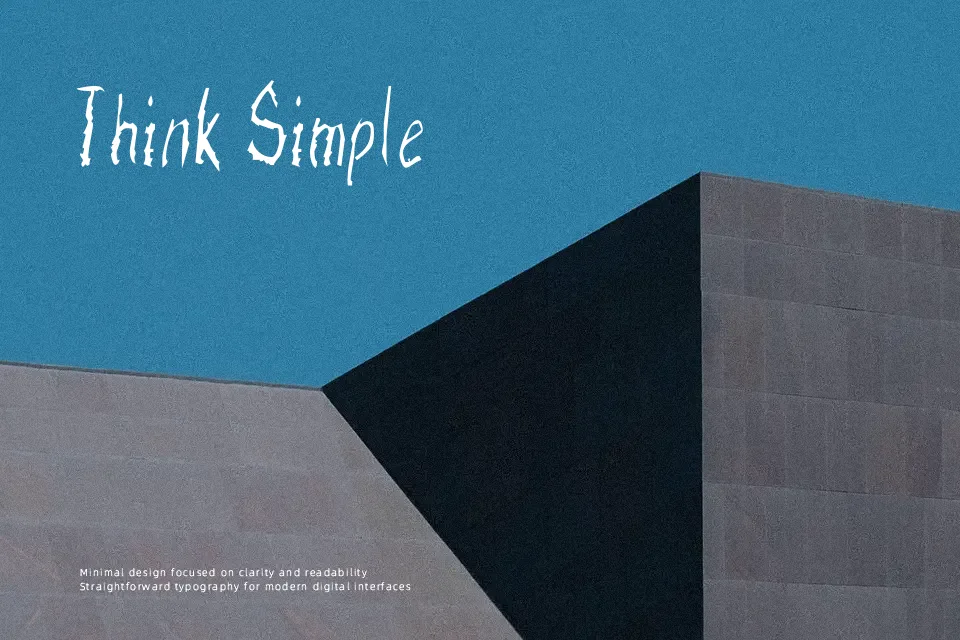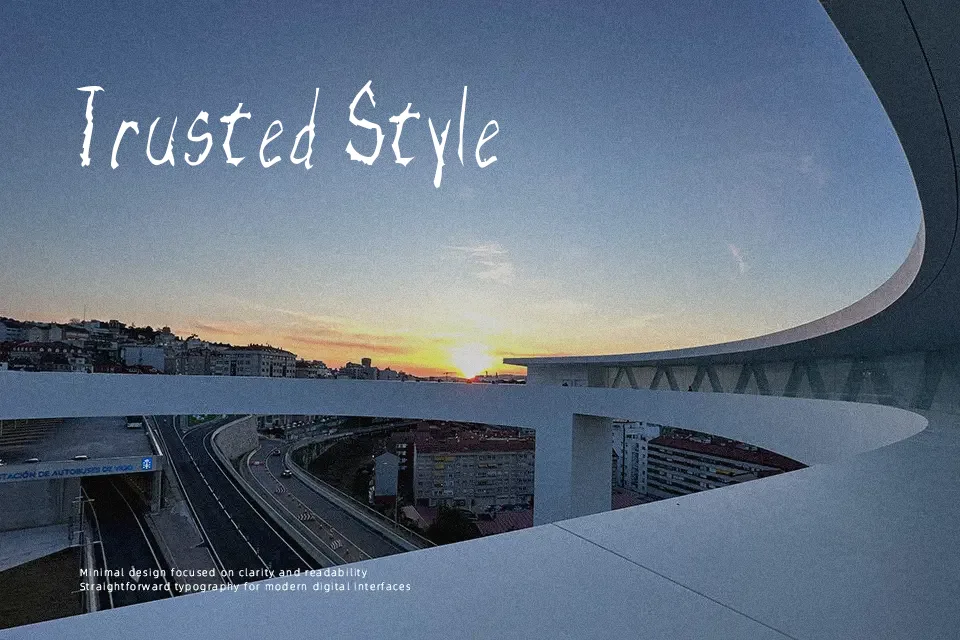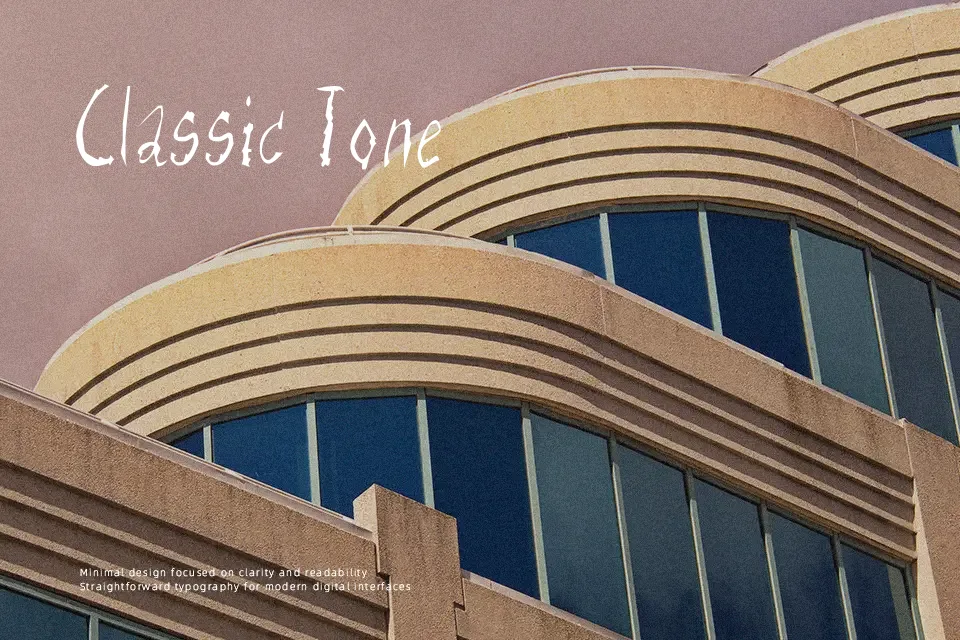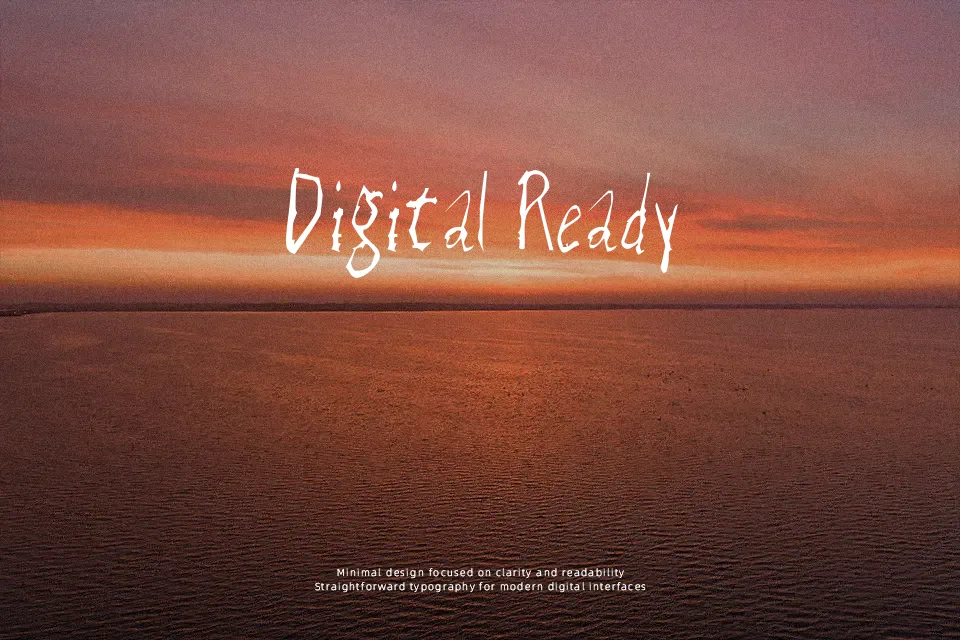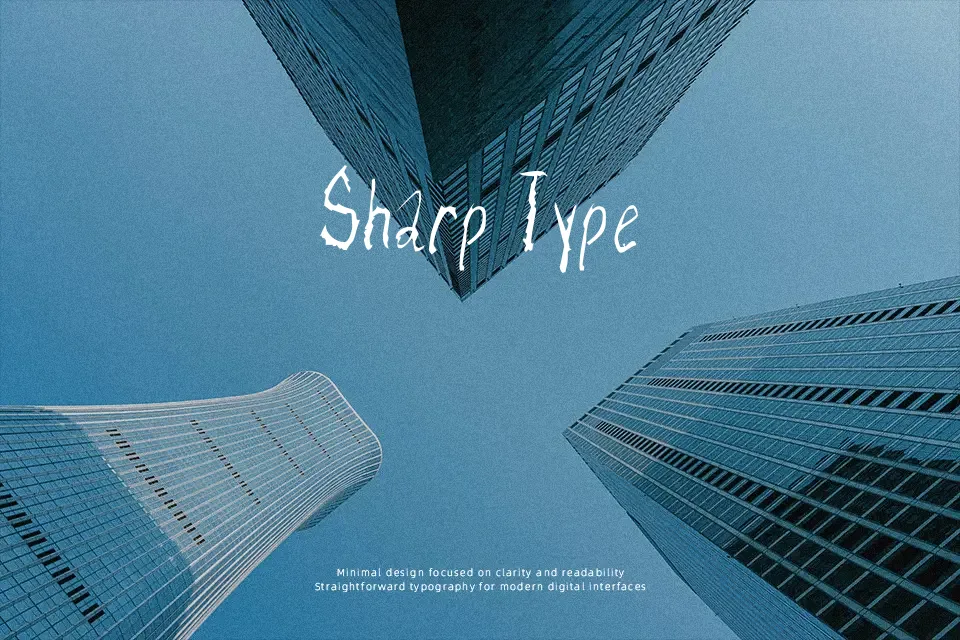
Razor Keen Font
Designed by Typodermic Fonts
Defined by its erratic, scratchy letterforms, Razor Keen Font mimics the chaotic strokes of a mapping quill dragged across coarse paper. The irregular baselines and sharp, jagged terminals immediately establish a frightening, unstable visual rhythm. Because the uppercase and lowercase characters rely on heavy texture and unpredictable proportions, the spacing feels intentionally restless. This aggressive display typeface performs exceptionally well on horror book jackets, thriller movie posters, and seasonal event flyers where an unsettling atmosphere is required. However, the heavily textured details become completely lost at smaller sizes, drastically reducing continuous reading comfort. The chaotic spacing helps maintain a menacing aesthetic in large headlines, but it makes the typeface wholly unsuitable for dense editorial layouts or interface design.
horror movie posters
thriller novel covers
haunted house branding
Halloween event flyers
continuous paragraph text
corporate documentation
Perfect for halloween, headline, and packaging, with a dark and decorative style.